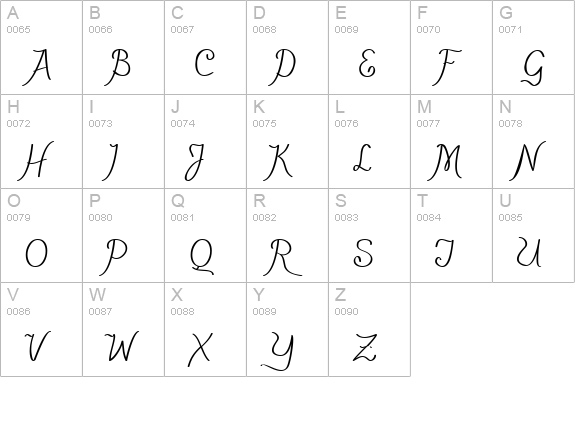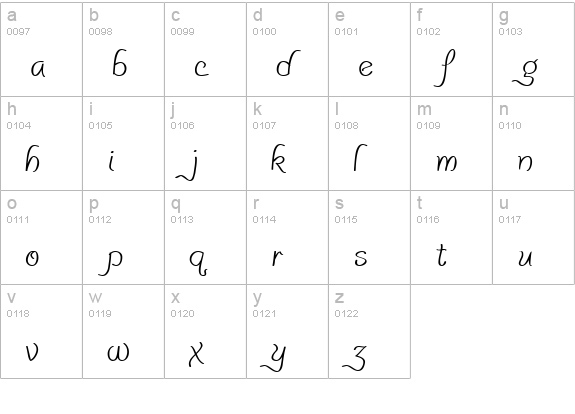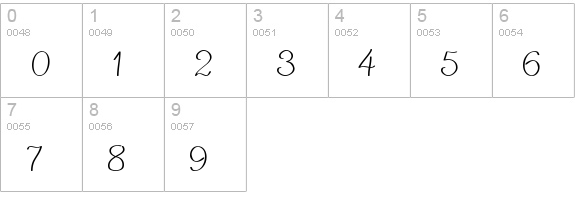
PensleCaligraf Font Details
Introducing the mesmerizing PensleCaligraf font, an exquisite calligraphy typeface that will elevate your designs to new heights. With its elegant and graceful strokes, PensleCaligraf captures the essence of traditional calligraphy while adding a modern twist. Each letter of PensleCaligraf is meticulously crafted, showcasing the artist's attention to detail and passion for the art of calligraphy. The fluidity and smoothness of the curves create a sense of movement, making every word written with PensleCaligraf come alive on the page. Whether you're designing wedding invitations, branding materials, or elegant signage, PensleCaligraf is the perfect choice to bring sophistication and elegance to your projects. Its versatility allows it to be used in a variety of contexts, from formal events to artistic endeavors. The beauty of PensleCaligraf lies not only in its aesthetic appeal but also in its accessibility. This font is freely available to download at FontsMarket.com, allowing designers and enthusiasts alike to enjoy the beauty of this typeface without any constraints. Its availability as a free download makes it an invaluable resource for those seeking to add a touch of elegance to their designs without breaking the bank. So why wait? Elevate your designs with the enchanting PensleCaligraf font and let its timeless beauty captivate your audience. Whether you're a professional designer or a hobbyist, this font is sure to become a staple in your toolkit. Download PensleCaligraf today from FontsMarket.com and let your creativity soar.